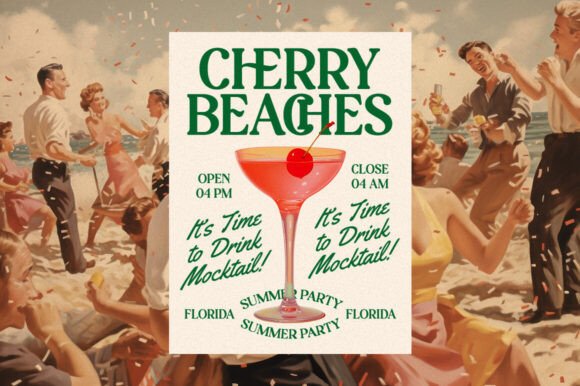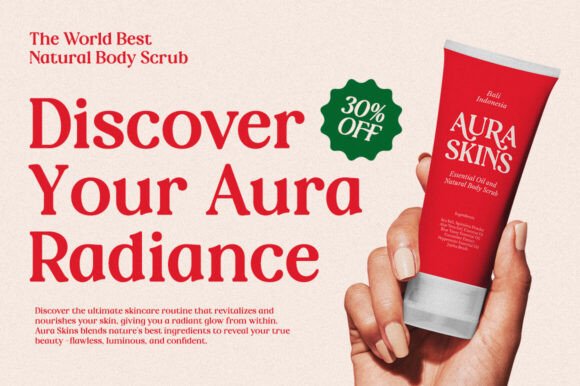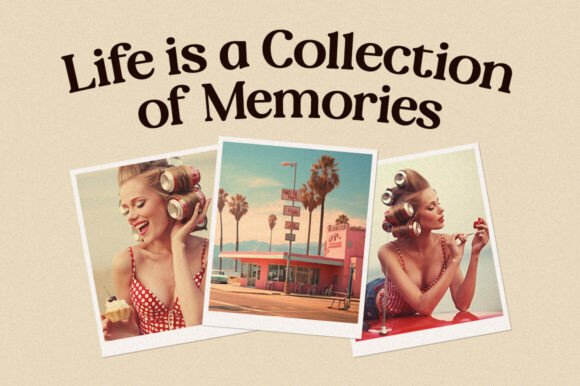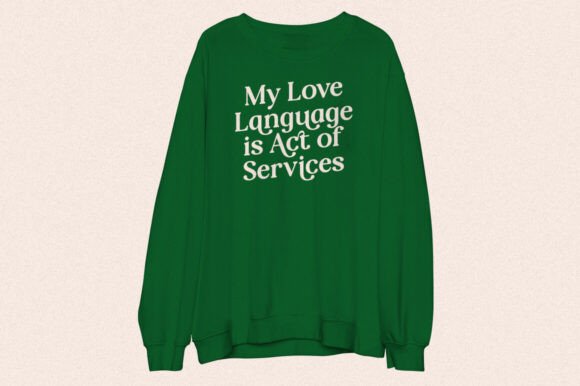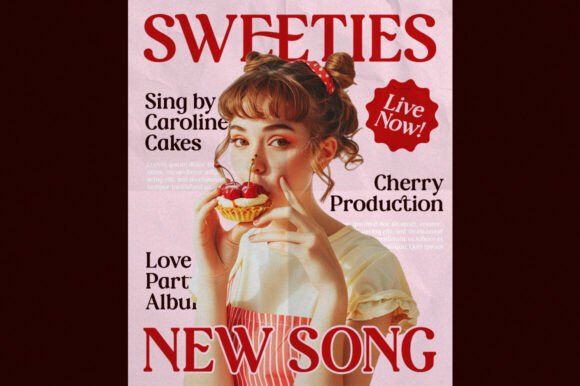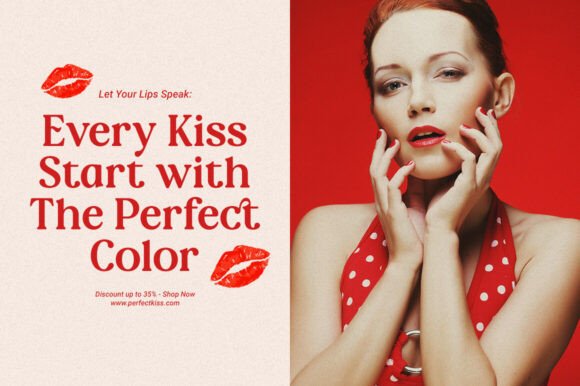
Cupcake Perfection Font: A Retro-Stylish Serif for Design Delights
Are you on the hunt for a font that adds a dash of nostalgia and whimsy to your designs? Look no further than the Cupcakes Perfection font! This charming serif font is inspired by vintage bakery signage and is sure to bring a touch of classic charm to any project. In this article, we’ll dive into the features and benefits of Cupcakes Perfection, and explore how it can elevate your branding, packaging, editorial layouts, and more.
A Font that’s the Icing on the Cake
Cupcakes Perfection is a retro-stylish serif font that’s as sweet as it is sophisticated. Its playful curves and warm details evoke the feeling of a bygone era, perfect for designers and crafters looking to add a touch of nostalgia to their work. Whether you’re creating branding materials, packaging, or editorial layouts, this font is sure to delight. With its extensive character set, including uppercase, lowercase, numerals, punctuation, and multilingual support, Cupcakes Perfection is the perfect choice for a wide range of design applications.
So, what sets Cupcakes Perfection apart from other fonts? Here are just a few of its standout features:
- Uppercase, Lowercase, Numerals, and Punctuation: Cupcakes Perfection includes a full range of characters, ensuring that you have everything you need to create professional-looking designs.
- Multilingual Support: With support for multiple languages, Cupcakes Perfection is the perfect choice for designers working on international projects.
- Alternates and Ligatures: Add some extra flair to your designs with the font’s built-in alternates and ligatures, perfect for creating unique typographic statements.
So, what can you create with Cupcakes Perfection? The possibilities are endless! Here are a few ideas to get you started:
- Branding and Packaging: Add a touch of nostalgia to your brand identity with custom packaging, labels, and business cards.
- Editorial Layouts: Create eye-catching editorial layouts, including magazines, newspapers, and blogs, with the font’s classic charm.
- Invitations and Stationery: Make your invitations and stationery stand out with the font’s playful curves and warm details.
- Crafting and DIY Projects: Add a personal touch to your crafting and DIY projects, including scrapbooking, card making, and more.
Why Choose Cupcakes Perfection?
With so many fonts on the market, why choose Cupcakes Perfection? Here are just a few reasons why designers and crafters love this font:
- Unique and Eye-Catching: Cupcakes Perfection is a one-of-a-kind font that’s sure to grab attention.
- Versatile: With its extensive character set and range of design applications, Cupcakes Perfection is a font that can be used again and again.